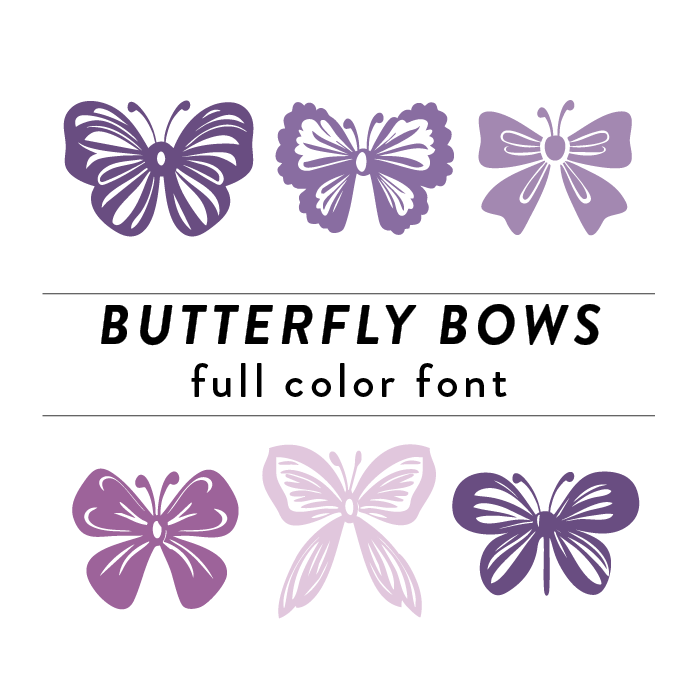
Butterfly Bows Full Color Font is a whimsical and vibrant font design that features intricate butterfly wings and delicate bows. Perfect for crafting, party invitations, and event decor, this unique font adds a touch of charm and playfulness to any project. This font is a OTF craft font that will appear in color only when used with the silhouette software.